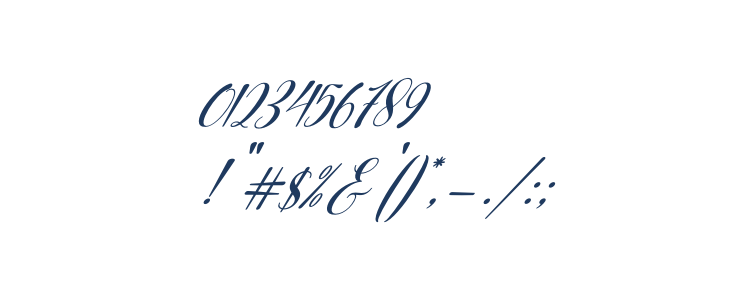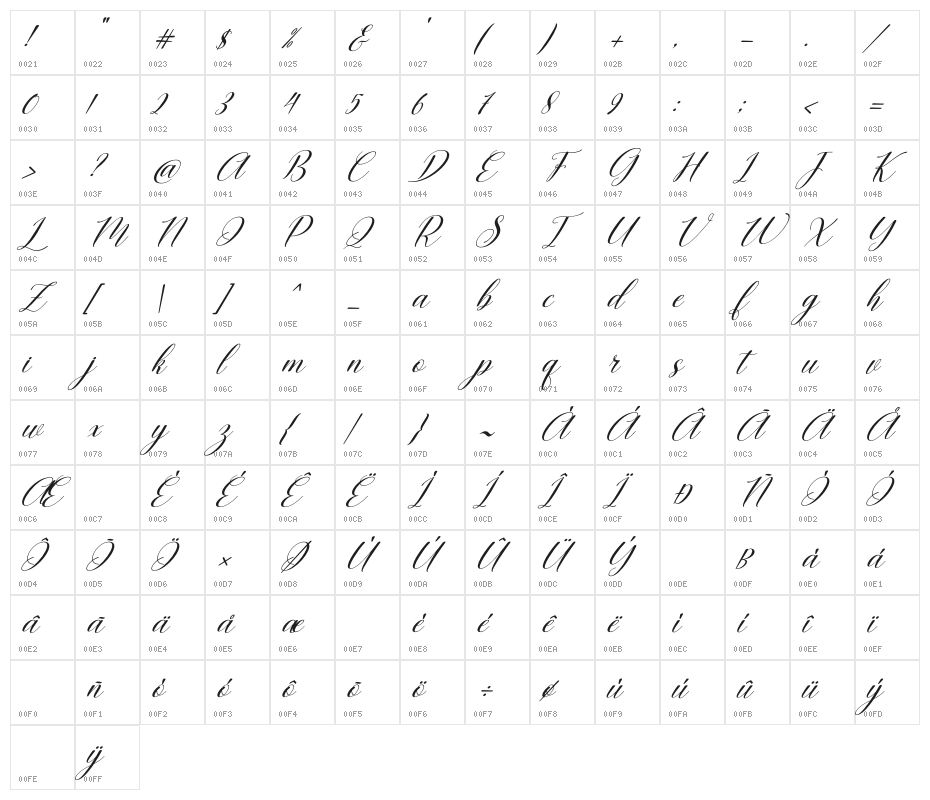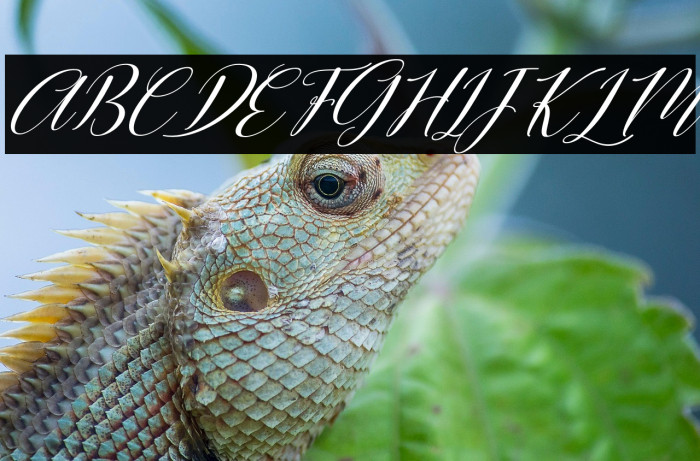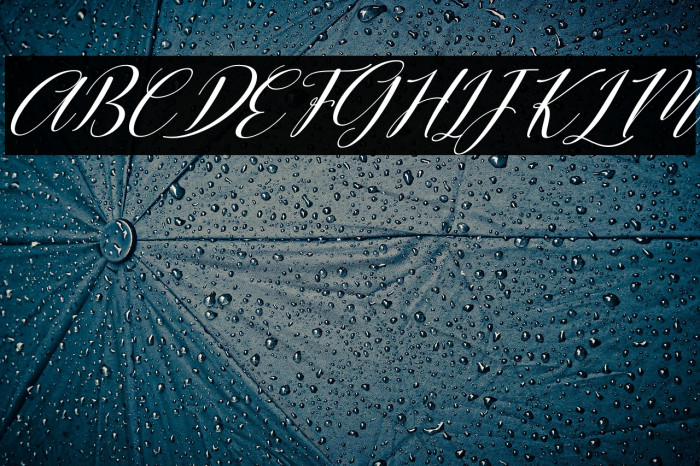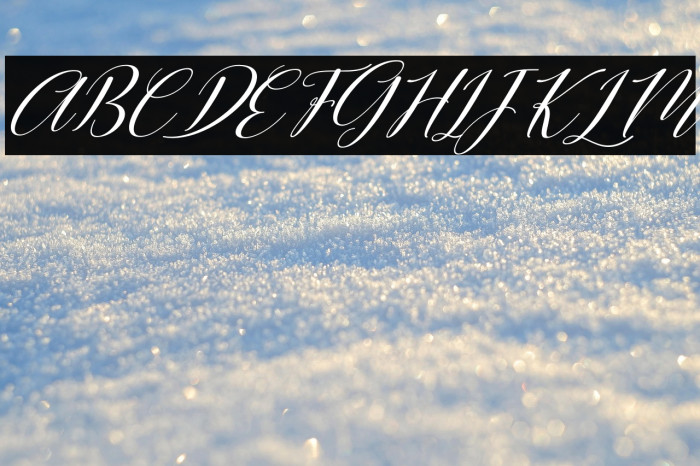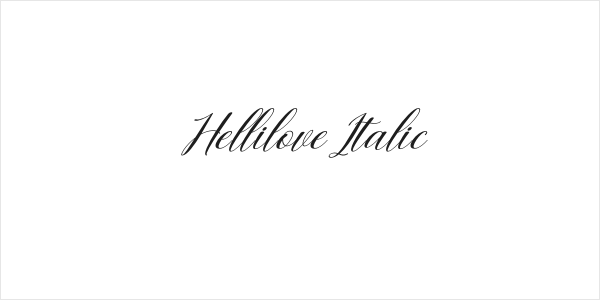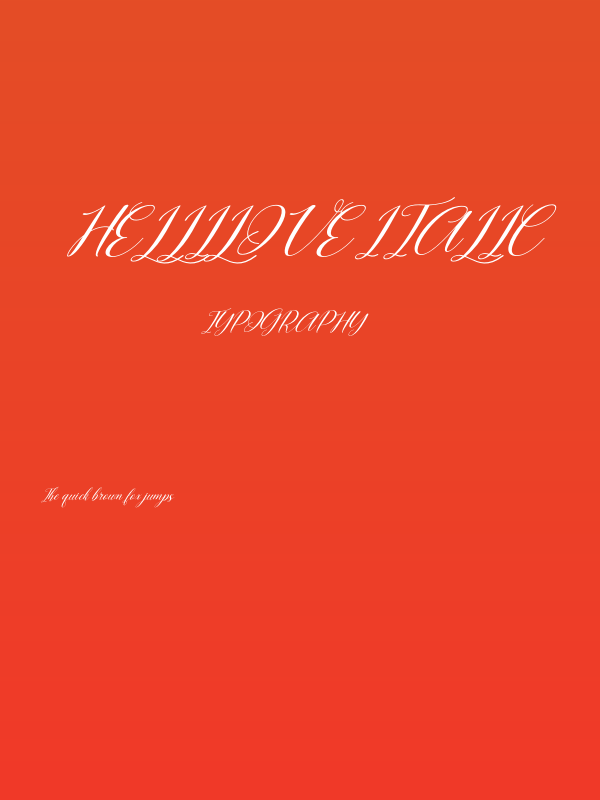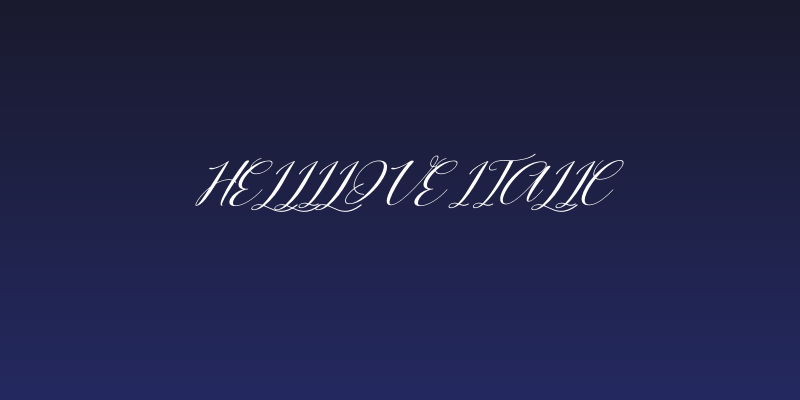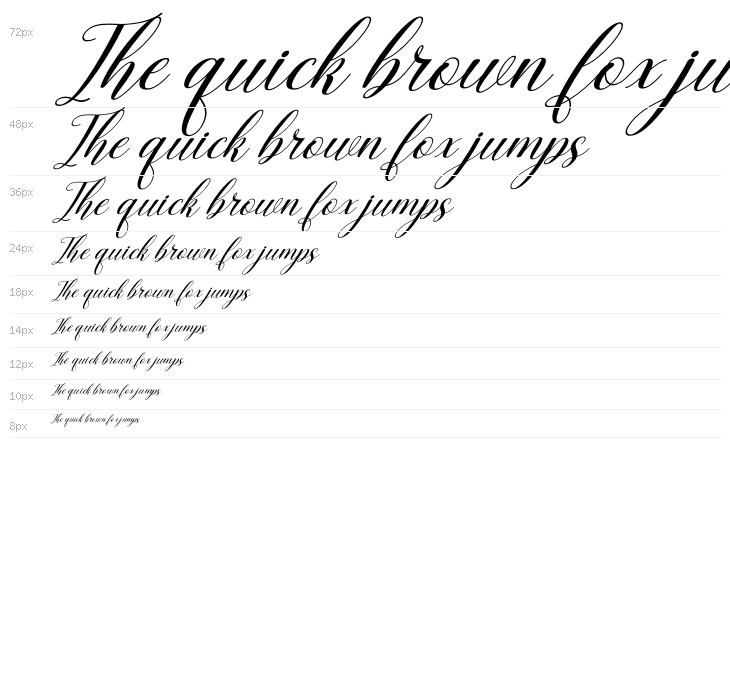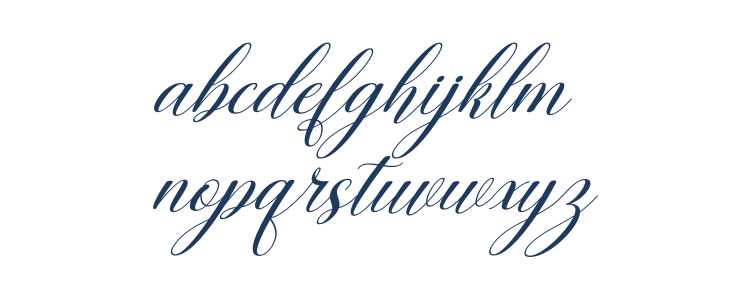
Hellilove Italic Font
Hellilove Italic Description
This elegant script font features a flowing, cursive style with a distinct slant, giving it a sophisticated and graceful appearance. The characters are intricately designed with high contrast between thick and thin strokes, enhancing its decorative appeal. The uppercase letters are particularly ornate, with sweeping curves and flourishes, while the lowercase letters maintain a consistent fluidity. The numerals and special characters are crafted to match the overall aesthetic, making this font suitable for formal and creative applications.
| Overall Style | Elegant, Decorative |
| Proposed Projects | Ideal for wedding invitations, elegant branding, greeting cards, and upscale packaging. |